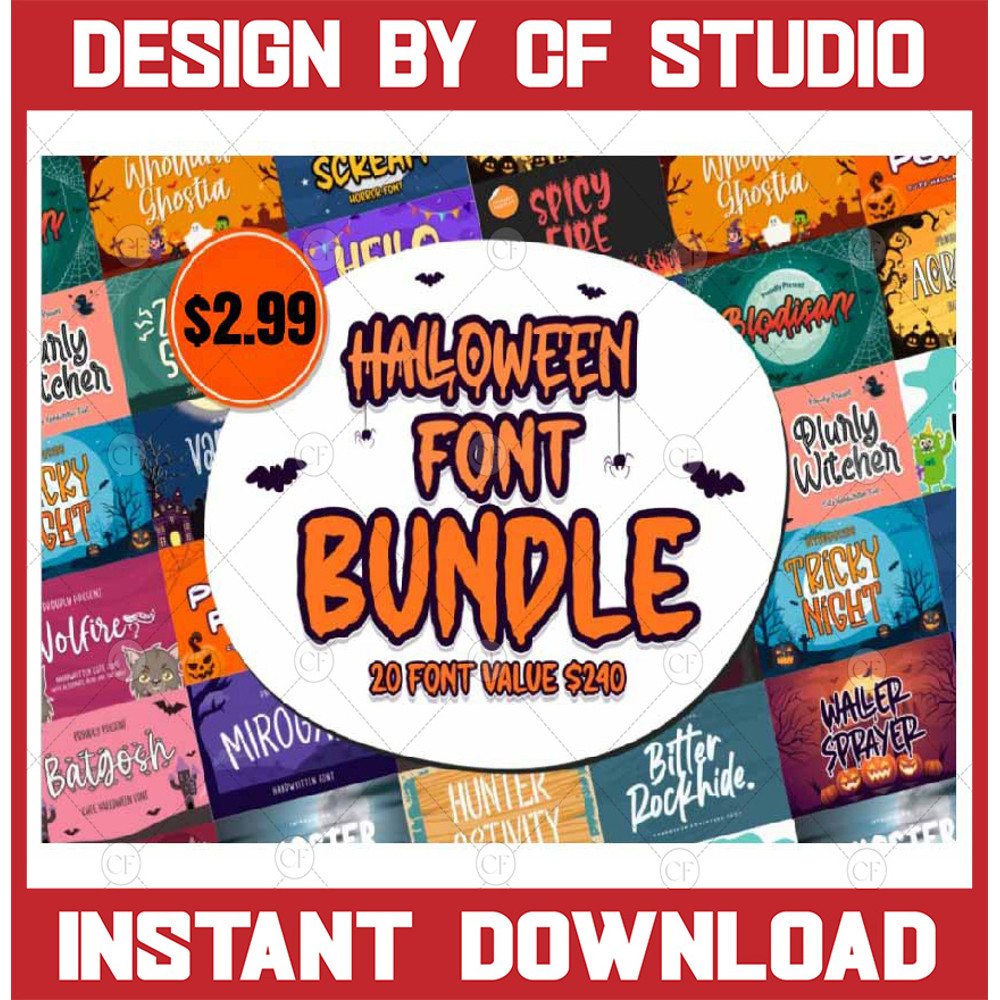
The Halloween Font Bundle is here with a great selection of 20 Halloween-themed fonts! These fun and creepy fonts are perfect for this season’s Halloween projects, and the fonts can be used with your Cricut and Silhouette crafting machines.
This bundle includes a handpicked selection of fonts, perfect for crafters!
Fonts Included:
Aoravella
Batgosh
Bitter Rockhide
Blodisan
Cute Dracula
Ghoster Hunter
Hello Crush
Hunter Activity
Mirogate
Monight Scream
Plurly Witcher
Pumpkin Power
Shiner Monster
Spicy Fire
Tricky Night
Vampire House
Waller Sprayer
Whollard Ghostia
Zombie Spooky
Wolfire
These fonts are perfect for your Cricut projects, SVG designs, shirts, stickers, signs, Halloween decor, invitations, logos, procreate and more!